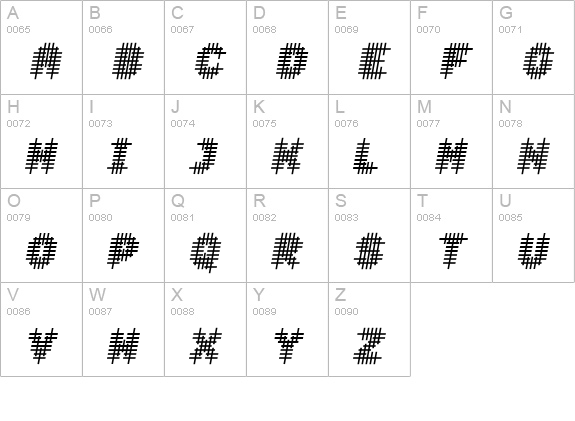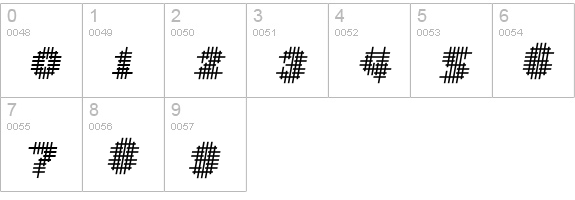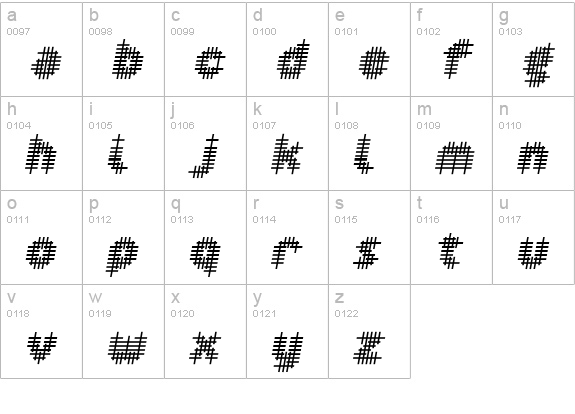
Overcross SemiBoldOblique Font Details
Overcross SemiBoldOblique is a modern and stylish font that exudes confidence and sophistication. With its sleek lines and subtle slant, this typeface is perfect for adding a touch of elegance to any design project. The SemiBold weight of Overcross gives it a strong presence on the page, making it ideal for headings and titles that demand attention. This versatile font is suitable for a wide range of applications, from branding and advertising to web design and editorial layouts. Its unique aesthetic combines classic elegance with a contemporary flair, making it a standout choice for designers looking to make a statement. Best of all, Overcross SemiBoldOblique is free to download at FontsMarket.com, allowing you to access this premium font without any cost. Don't miss out on the opportunity to enhance your projects with the timeless beauty of Overcross SemiBoldOblique.